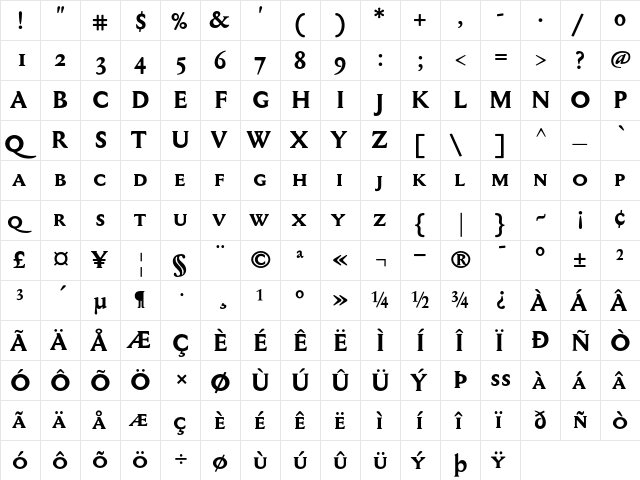
Mediaeval SCOSF Bold
| Foundry | Frantisek Storm |
| Designer | Frantisek Storm |
Design Context for Mediaeval SCOSF Typeface
Mediaeval SCOSF offers clean, dependable letterforms without strong stylistic allegiance, making it a practical choice for designers who need flexibility. Its bold stroke weight gives it real presence on the page.